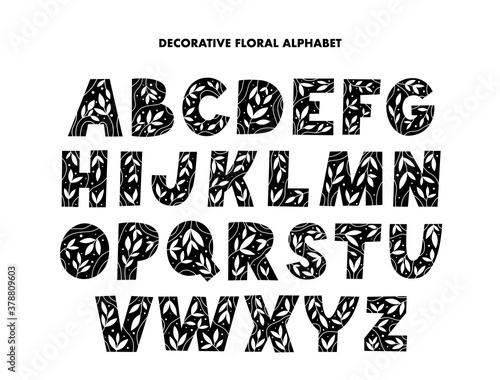
Decorative alphabet hand drawn English letters with leaves ornament on white background. Bold capital isolated symbols with floral pattern. Black ornate font, typography set. Elegant romantic ABC font